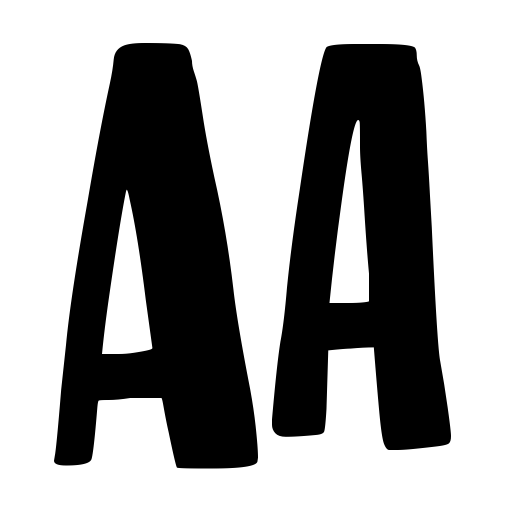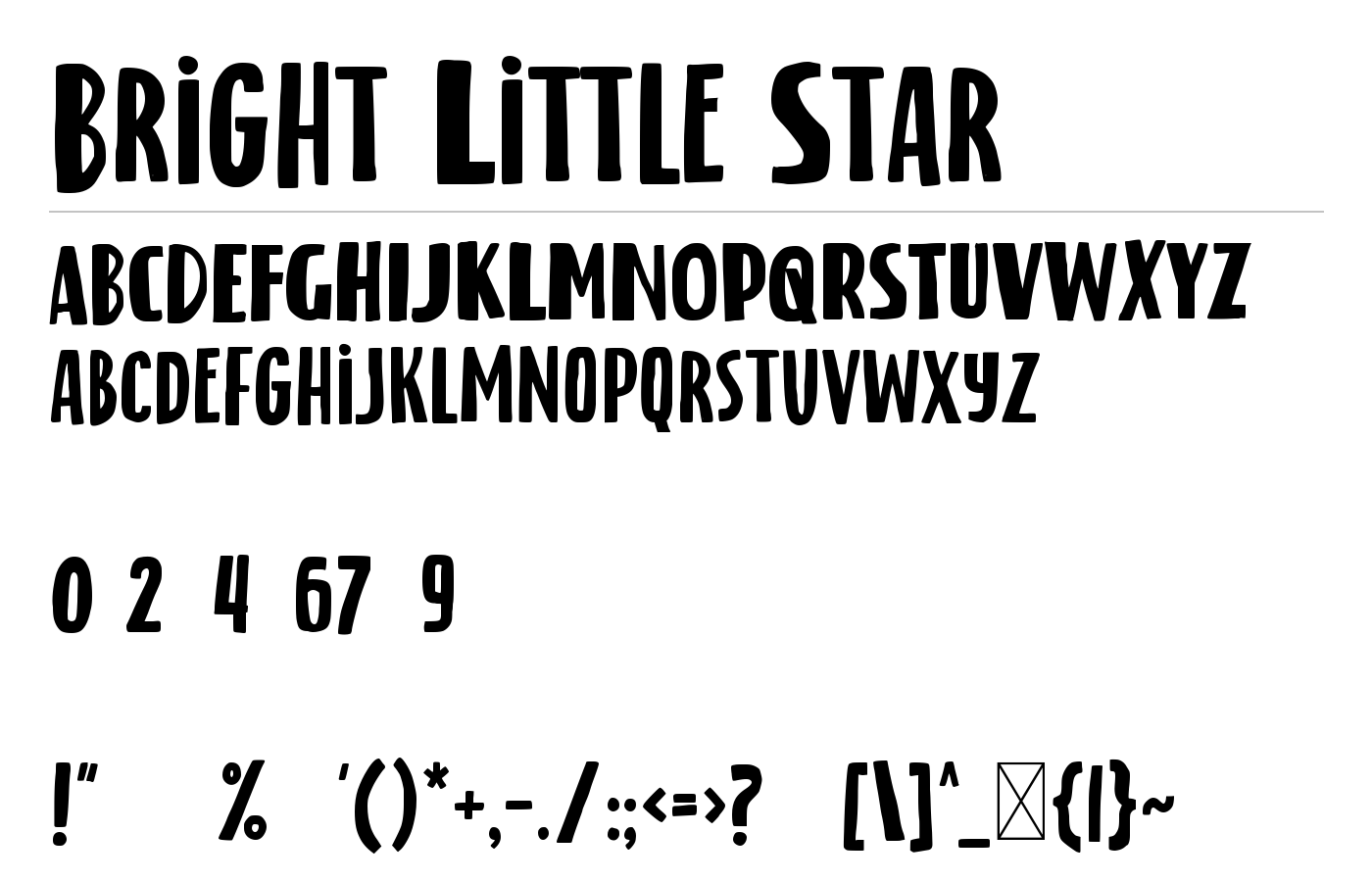
Bright Little Star is a playful, tall sans serif font with a hand-drawn feel, featuring slightly irregular shapes and a casual, friendly vibe. Its condensed width and lively letterforms make it perfect for eye-catching headlines, children’s books, or any design seeking a fun and approachable personality. This font shines in creative projects where a whimsical, informal style is desired.
Bright Little Star Font
About Bright Little Star Font
| Font family | Bright Little Star Font |
| Designer | Anang F & Malik Wsn | Gassstype© Studio 2021 |